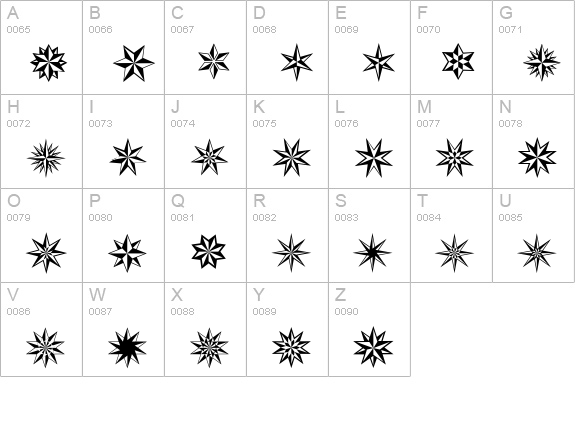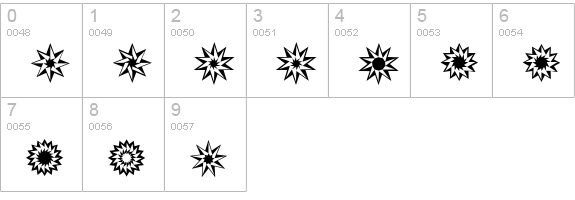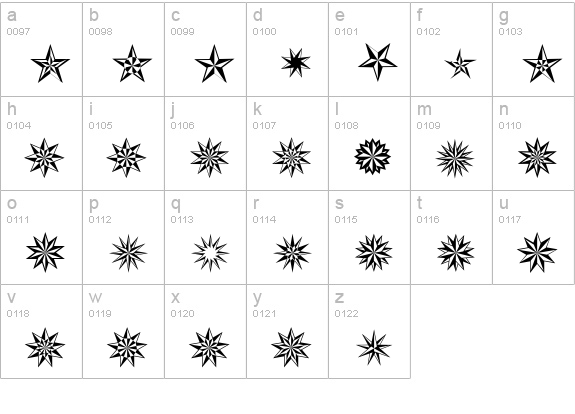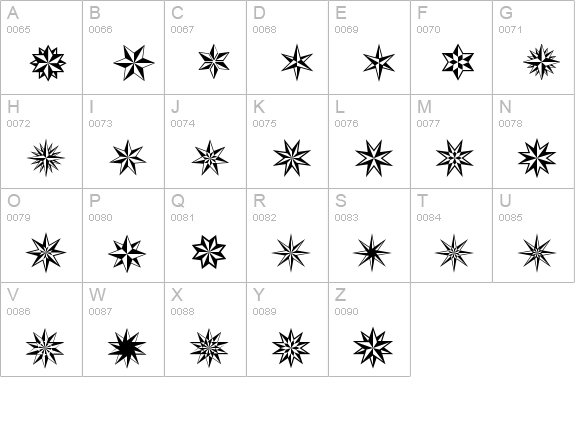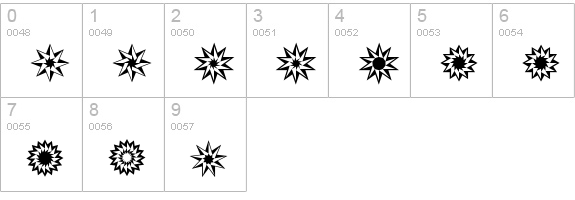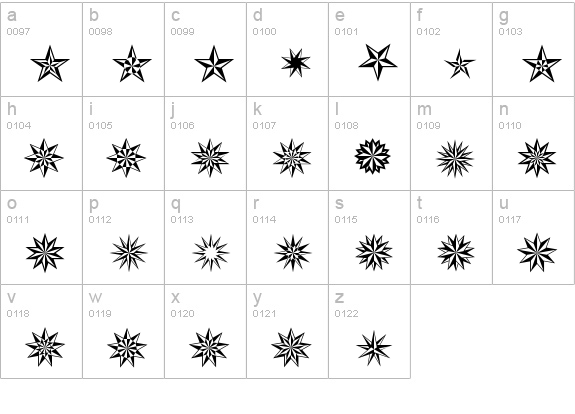
XStarsAndStripesTwo Font Details
Introducing XStarsAndStripesTwo font, a captivating display typeface that exudes a sense of patriotic charm and boldness. With its intricate star and stripe motifs, this font is perfect for projects that aim to evoke a sense of American pride and spirit. The unique design of XStarsAndStripesTwo font makes it stand out in any layout, adding a touch of creativity and flair to your designs. Best of all, XStarsAndStripesTwo font is available for free download at FontsMarket.com. This means you can easily access this eye-catching font to use in a variety of projects without any cost involved. Whether you're working on a poster, flyer, website, or any other design project, XStarsAndStripesTwo font is sure to make a statement. Download it today and let your creativity shine with this stunning typeface.